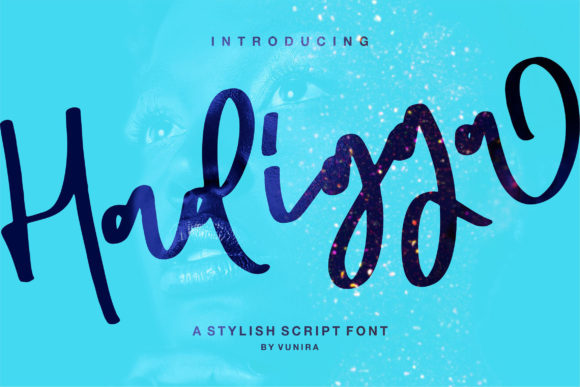
Behold Hadigga, a font of elegance and charm, designed to bring a touch of sophistication to your creative endeavors. Crafted with delicate strokes and sweeping curves, this font exudes a regal aura, evoking the grandeur of royal courts and timeless literature. Hadigga is the perfect choice for designers seeking to add a touch of class to their projects, whether it's a wedding invitation, a vintage-inspired poster, or a captivating brand logo.
Immerse yourself in the world of Hadigga, where words dance with grace and refinement. The sweeping curves of its letters create a visual symphony, capturing the essence of elegance and poise. This font is not merely a collection of characters; it's an artistic journey, an ode to the beauty of written language. Whether you're a seasoned designer or just starting your creative journey, Hadigga will elevate your projects to new heights of sophistication.
Unleash the power of Hadigga and watch as your designs transform into masterpieces. Its versatility knows no bounds, adapting effortlessly to a wide range of projects. From elegant wedding invitations to captivating social media posts, Hadigga adds a touch of timeless charm to any creation. Stand out from the crowd and make a statement with a font that speaks volumes.
Hadigga is more than just a font; it's a gateway to a world of creative possibilities. Let your imagination soar as you explore the endless potential of this exquisite font. Imagine your words dancing across the page, imbued with the spirit of Hadigga. Experience the joy of creating designs that captivate and inspire, leaving an indelible mark on the hearts of your audience.